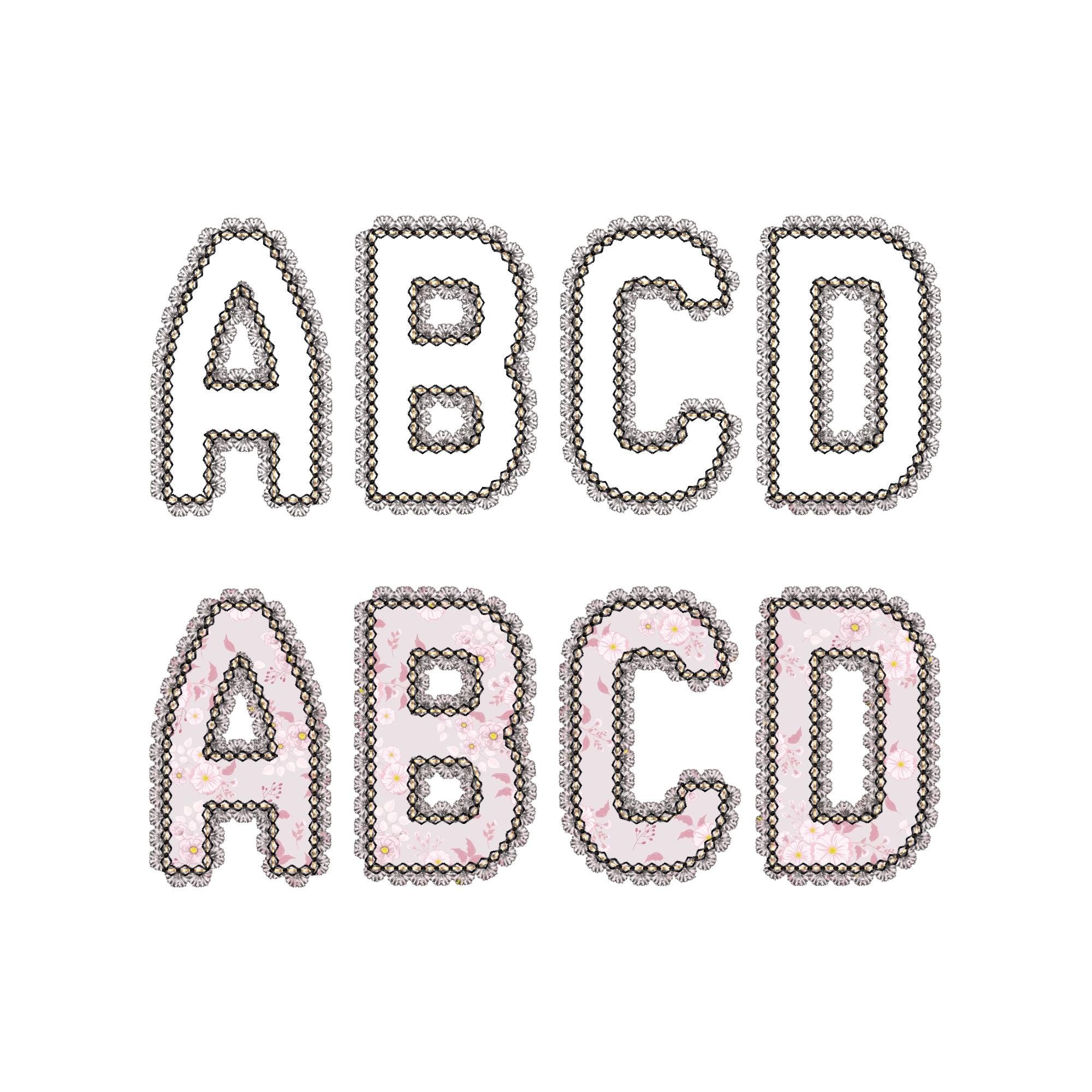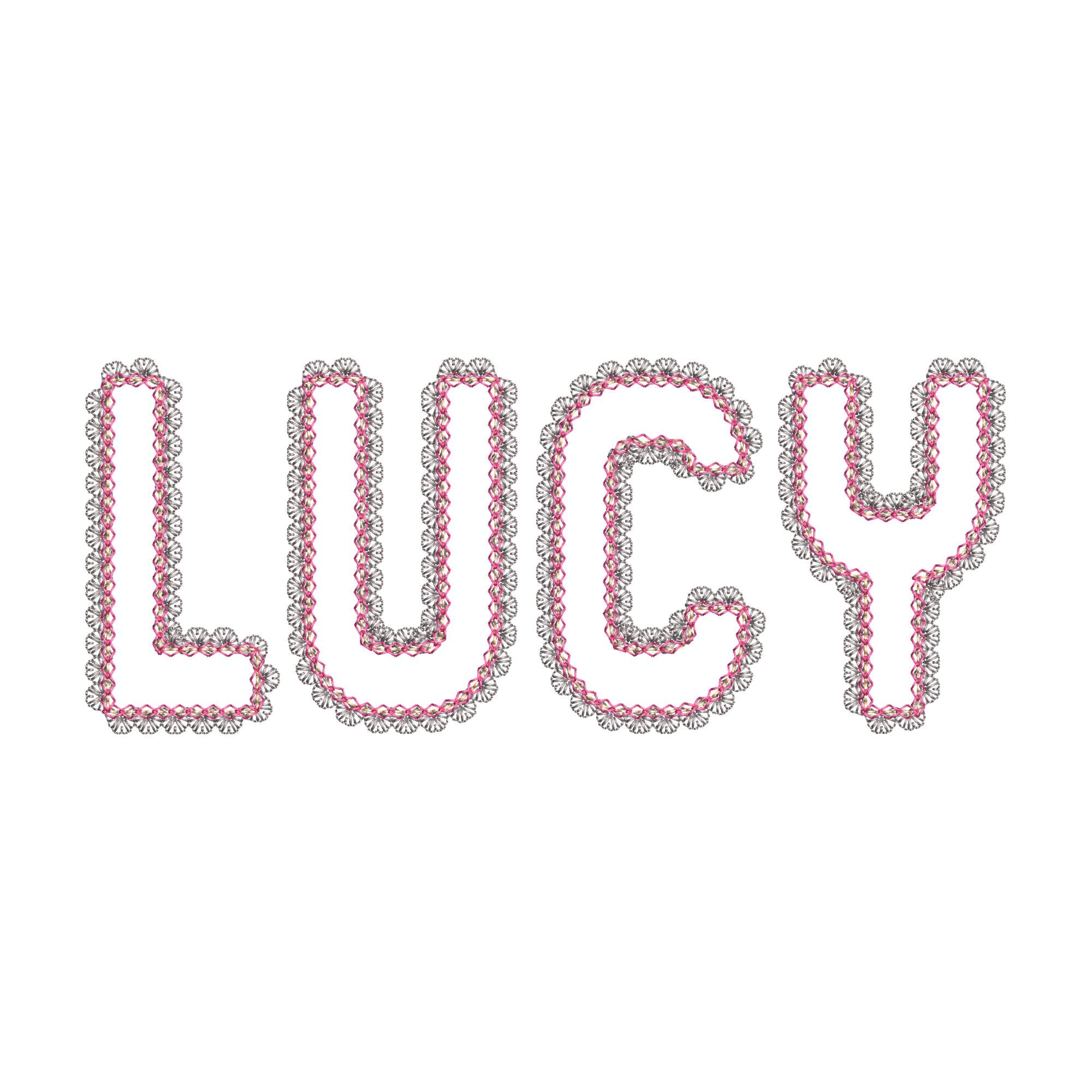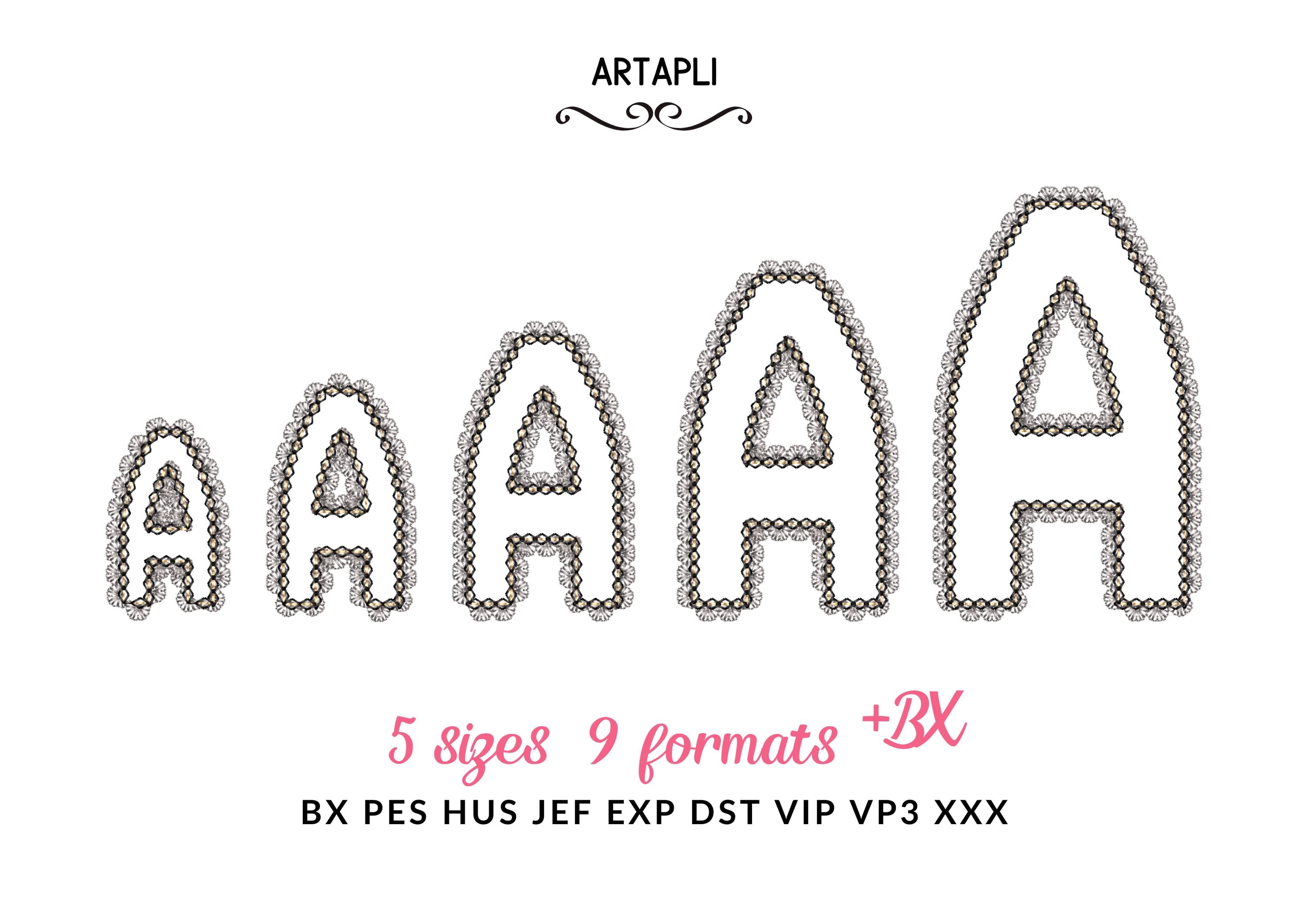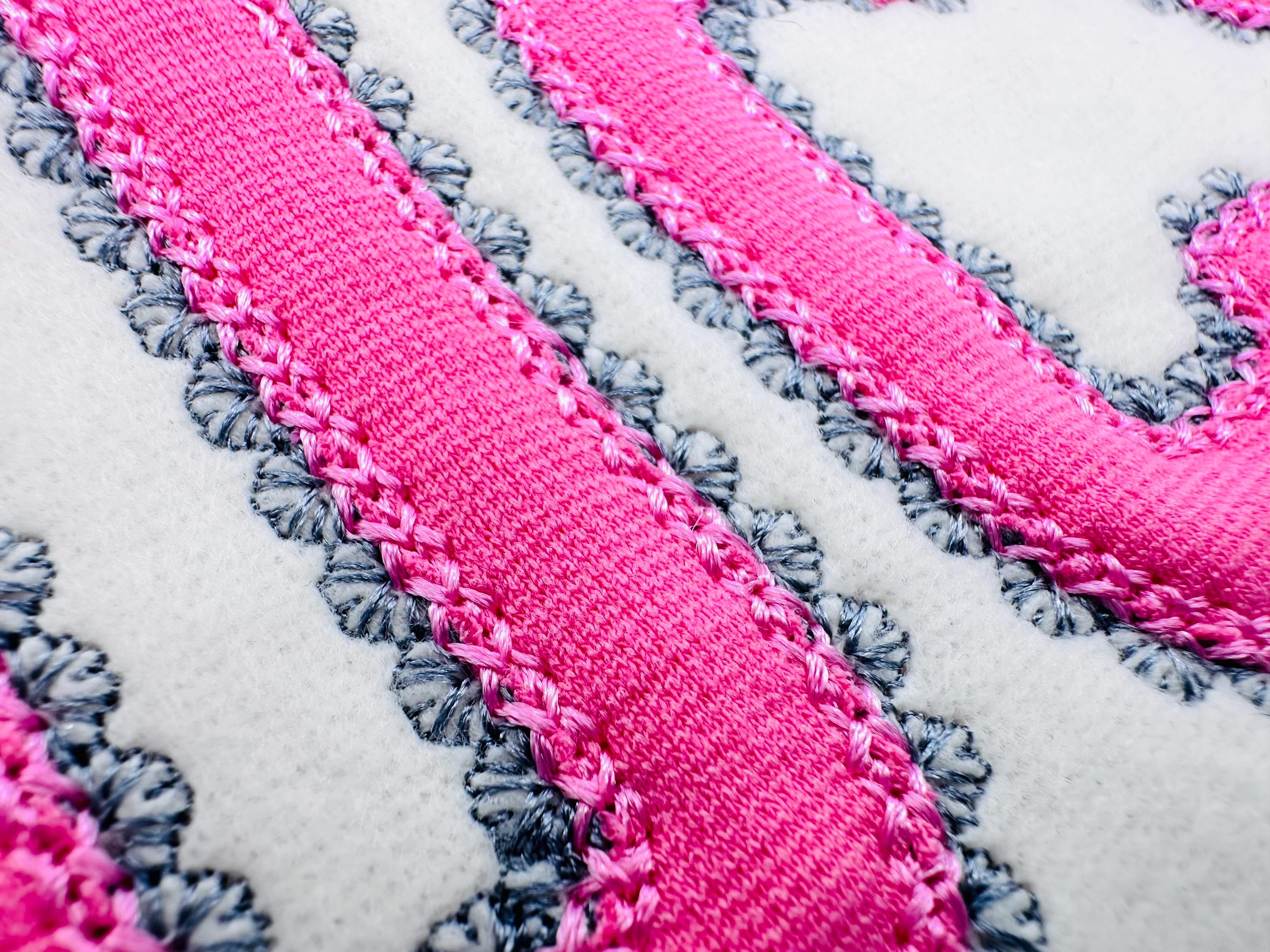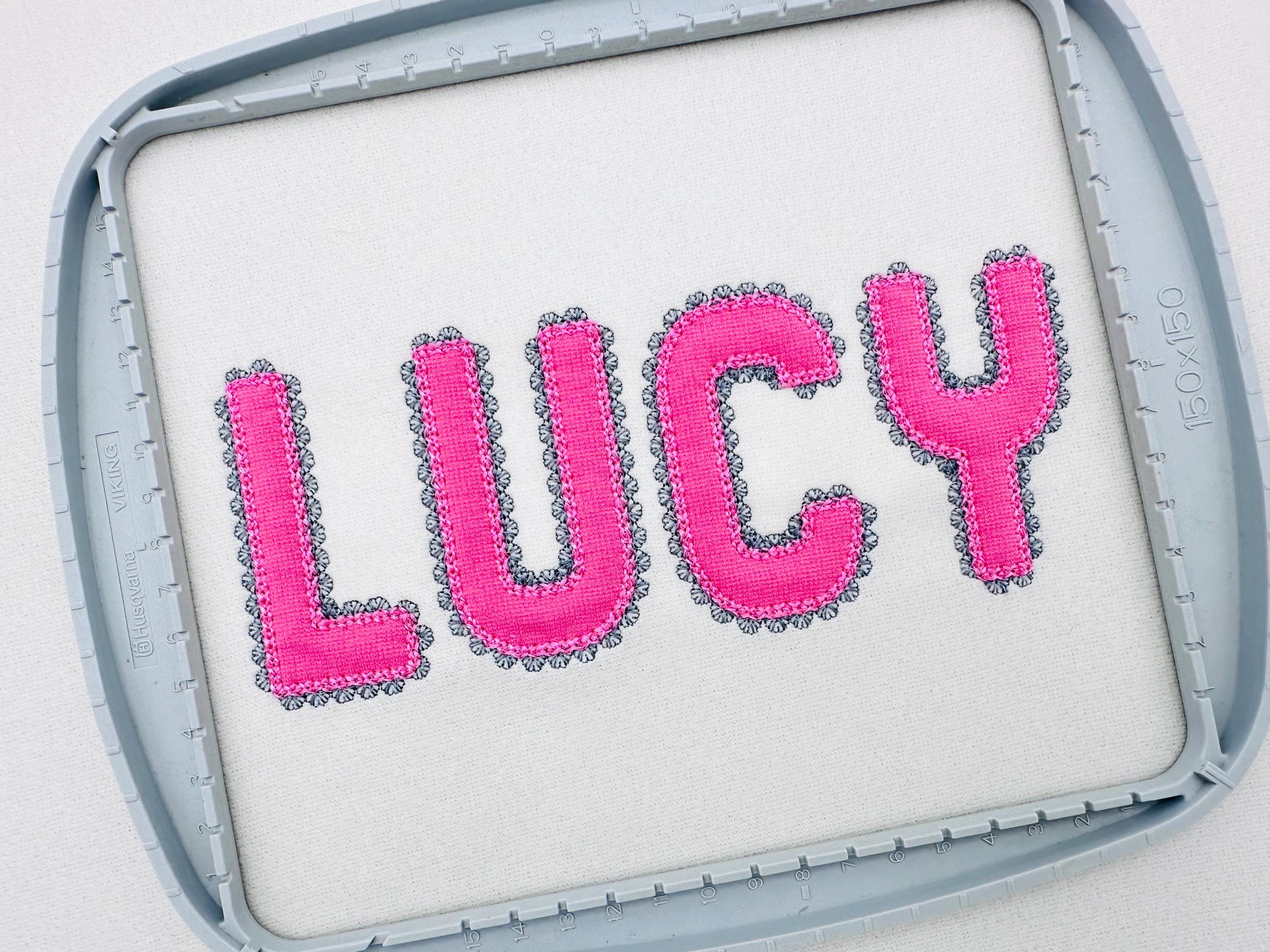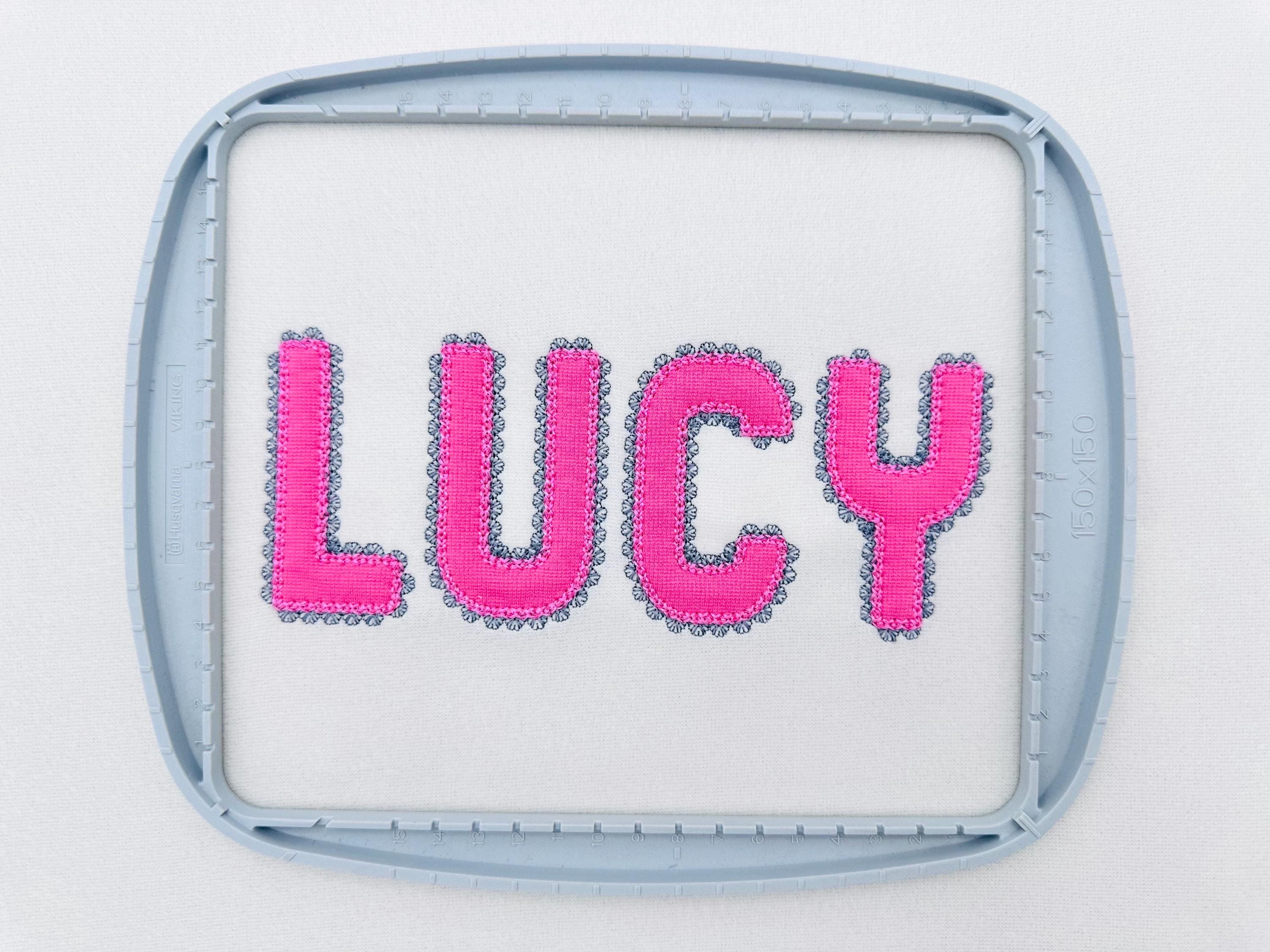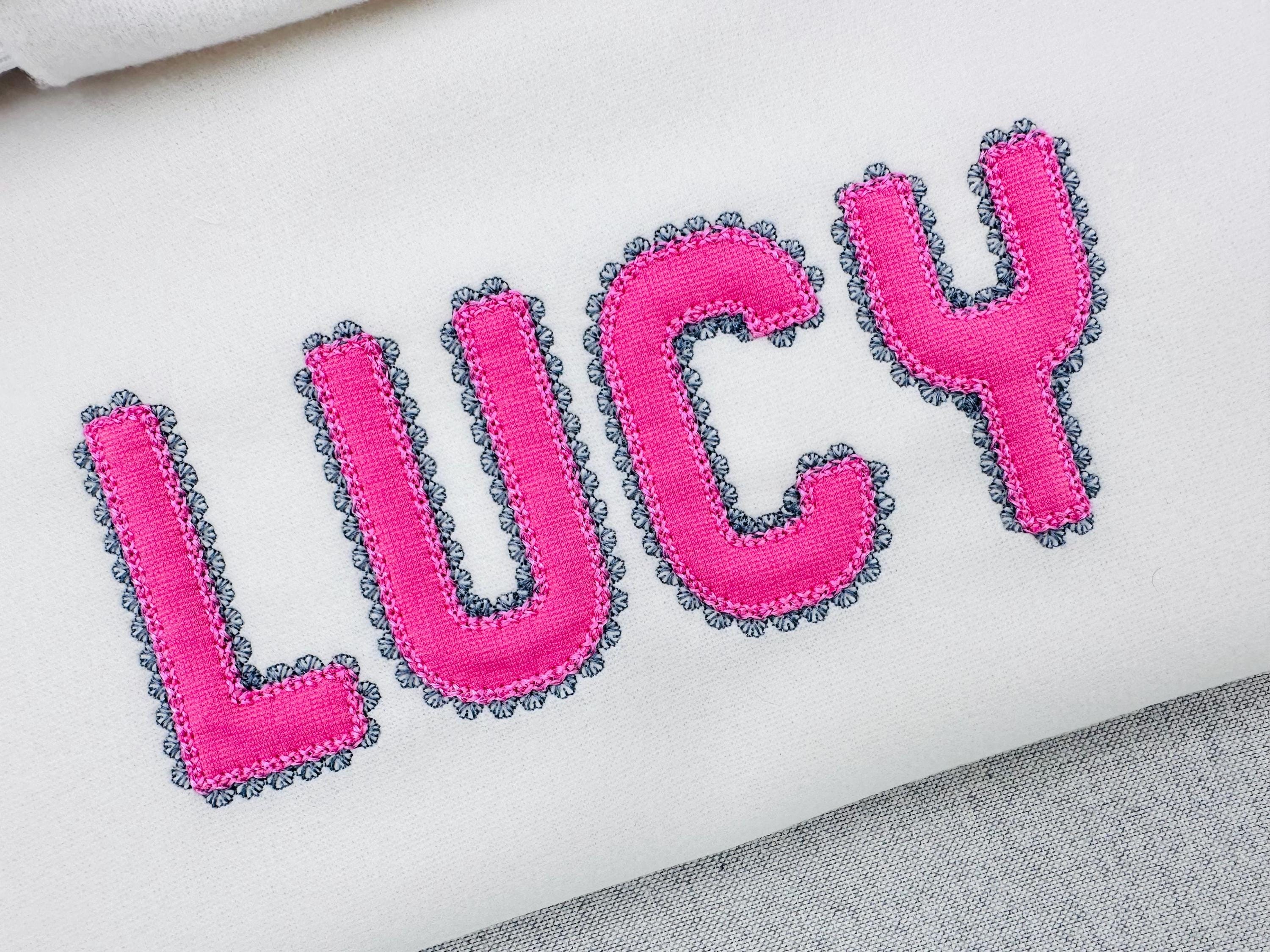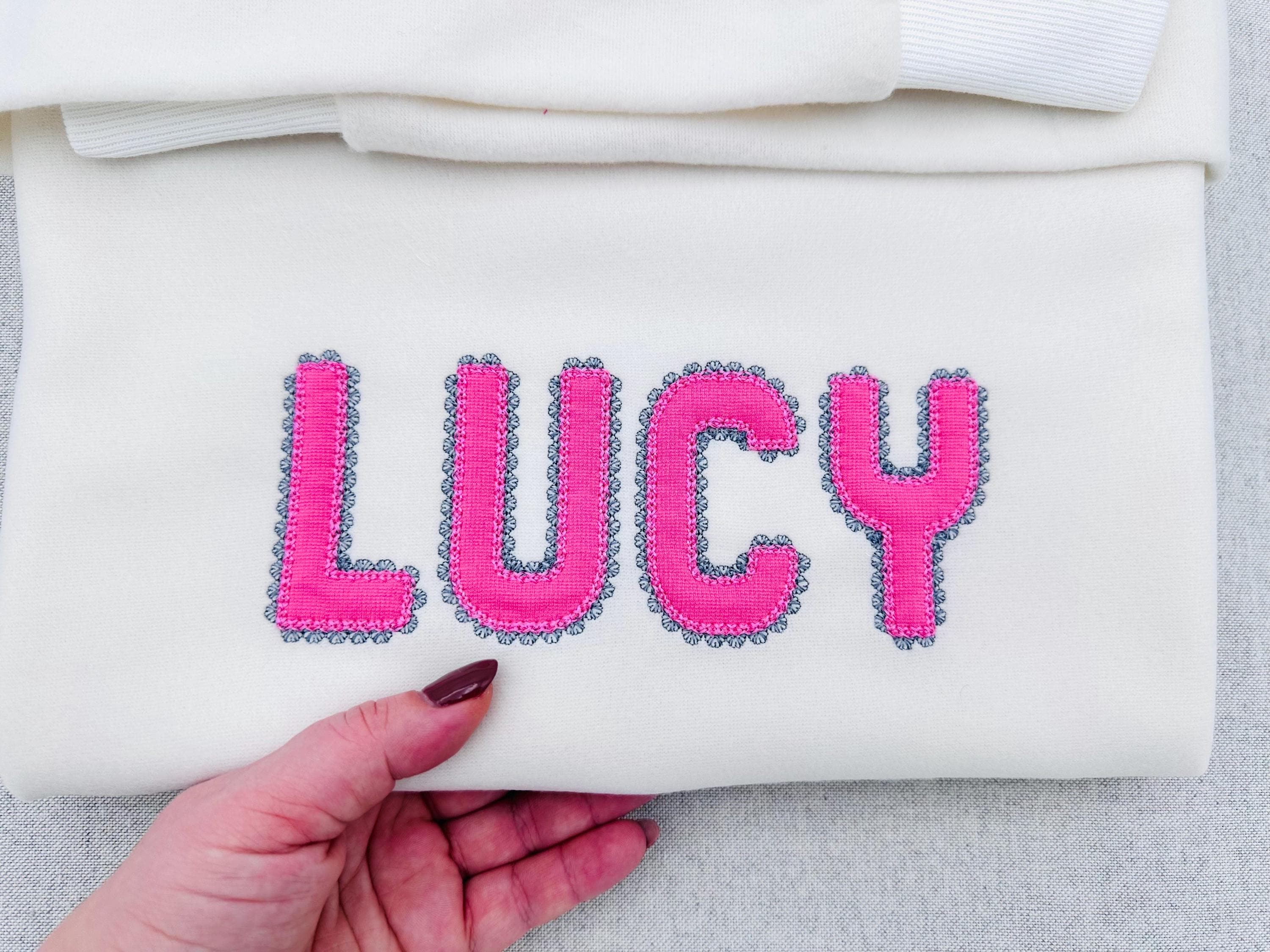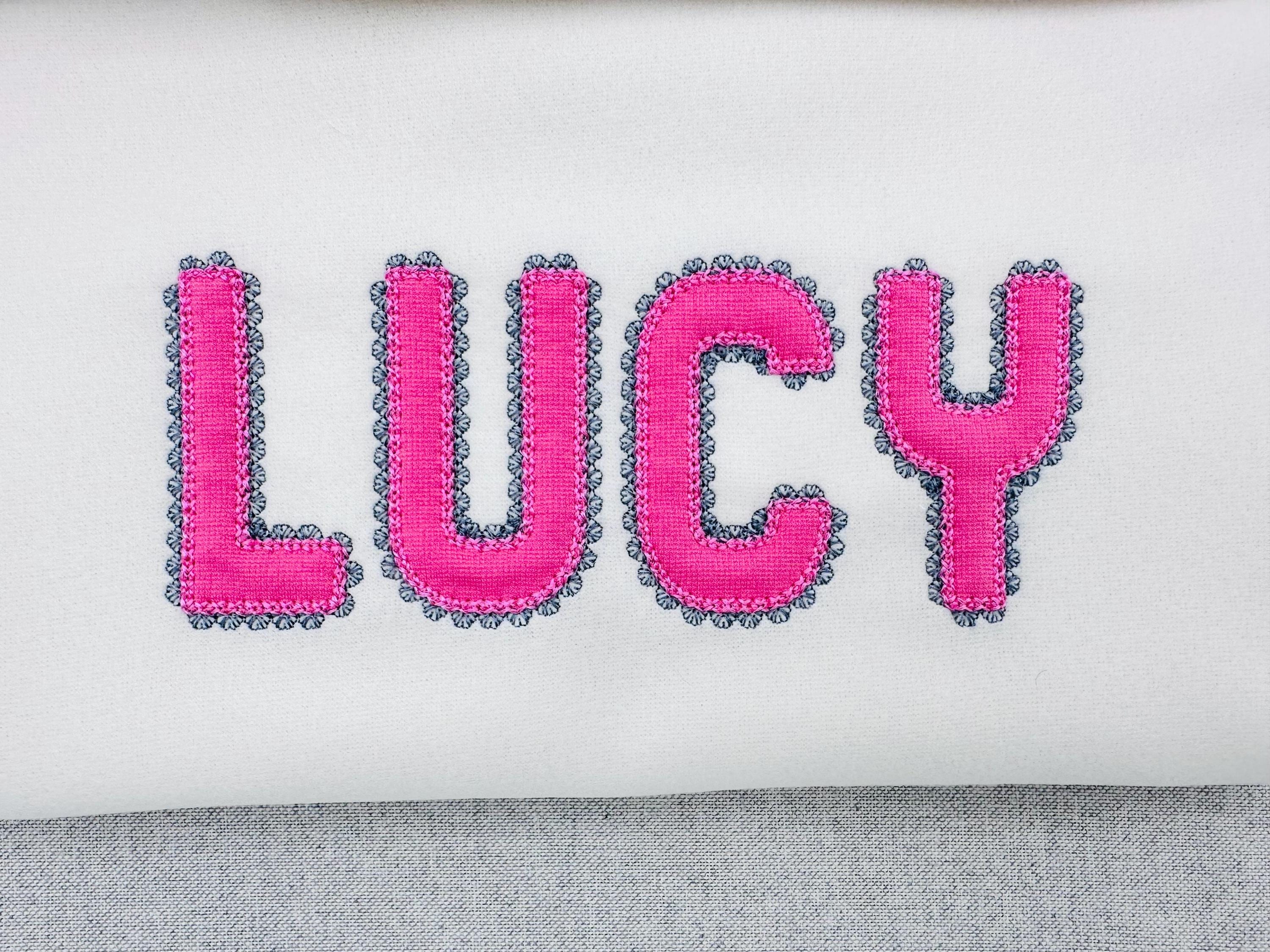
Lace edge is a part of the design. The background fabric looks through. Stunning effect!
Entire alphabet uppercase letters A-Z, numbers 0-9, and punctuation.
This is an appliqué font with a delicate lace-style edge, very vintage and handmade look.